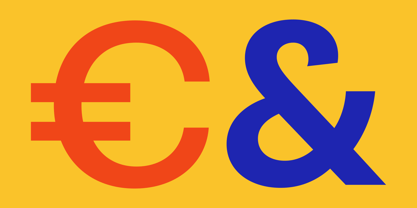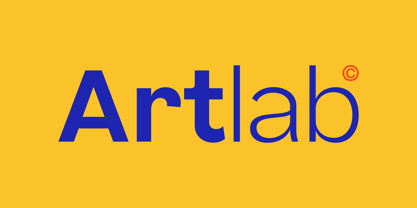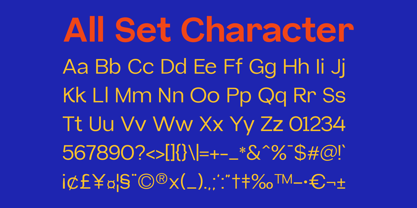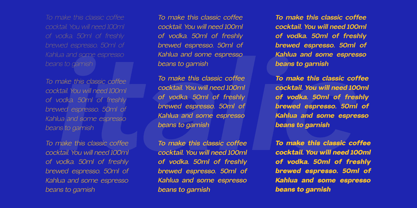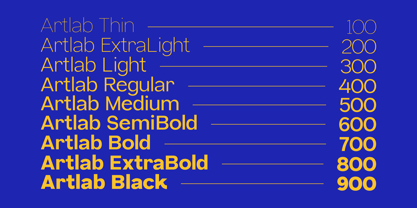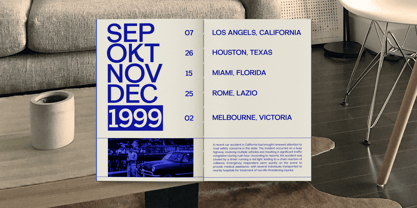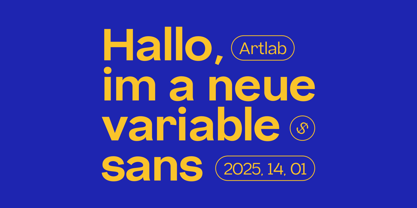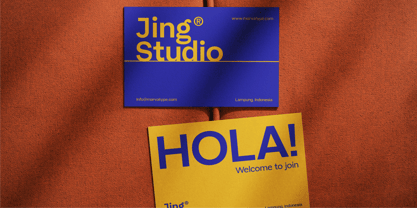
Artlab
by Marvadesign
The Artlab Font Family was designed by Febrie Setiawan and published by Marvadesign. Artlab contains 18 styles and family package options.
Introducing New Brand Typeface Artlab is a modern variable sans-serif typeface known for its clean and visually appealing design. It offers a versatile range of 18 styles, making it suitable for a variety of design applications.
The styles include
Thin
Thin Italic
ExtraLight
ExtraLight Italic
Light
Light Italic
Regular
Regular Italic
Medium
Medium Italic
SemiBold
SemiBold Italic
Bold
Bold Italic
Black
Black Italic
This flexibility allows Artlab to adapt seamlessly to both minimalist and bold design aesthetics, making it an excellent choice for branding, editorial design, or digital interfaces. Its clean structure and readability ensure it remains a professional.